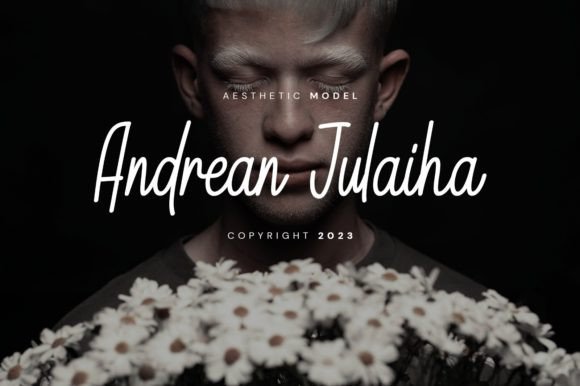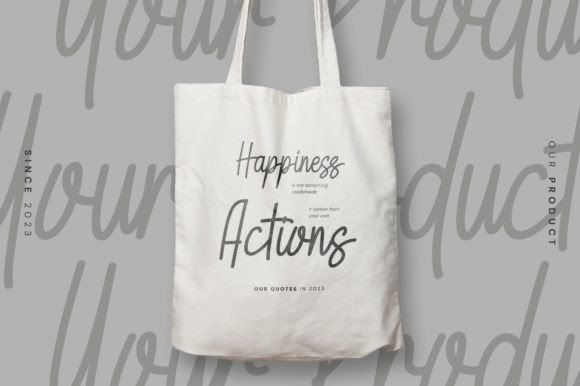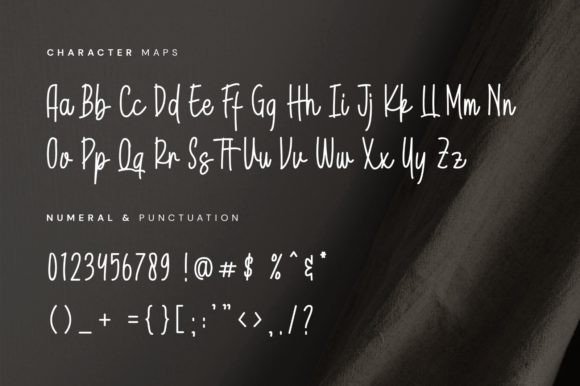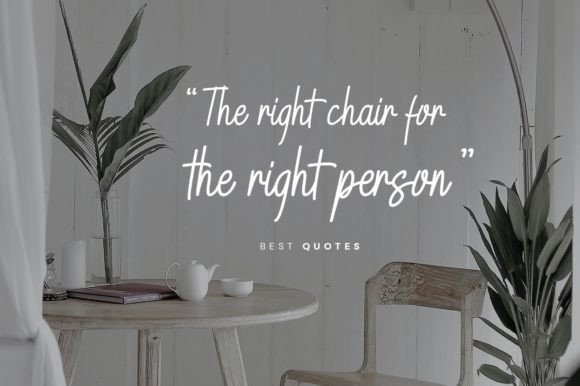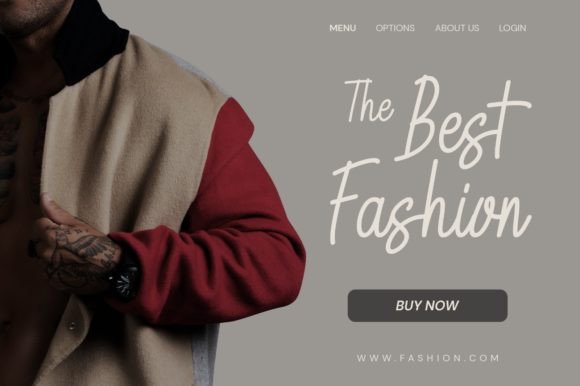
Introduction to Heart Bullet Font
Do you remember that moment when you stumbled upon the perfect design element that elevated your creative project from ordinary to extraordinary? For designers, finding the right font can be a game-changer. It’s the difference between a bland, generic look and a unique, eye-catching visual identity that speaks to your audience.
One such design resource that has been making waves in the creative community is the Heart Bullet Font. This charming handwritten script font is perfect for adding a customized touch to your designs. Whether you’re working on wedding invitations, cards, or any other project that requires a high-quality, personalized feel, the Heart Bullet Font is an excellent choice. With its transparent background and free download option, it’s an easily accessible design element that can elevate your creative project to new heights.
For designers, the Heart Bullet Font is a valuable asset that can add a touch of whimsy and personality to their designs. Its high-quality, creative charm makes it an ideal choice for any project that requires a unique and eye-catching visual identity.
Key Features of Heart Bullet Font
- Unique, hand-drawn design with a distinctive heart-shaped bullet point, adding a touch of creativity and personality to any project.
- Perfect for use in logos, icons, infographics, and other visual elements where a creative and eye-catching design is required.
Honest Review: Heart Bullet Font
I recently came across the Heart Bullet Font and I’m excited to share my thoughts on it. This font is perfect for any creative project that needs a touch of whimsy and romance. It’s a great design resource for those looking for a high-quality font that can add a personal touch to their work.
- ✨ The font has a unique and playful design that’s perfect for creative projects.
- ✨ The font has a transparent background, making it easy to use with any background image or color.
- ⚠️ The font is not suitable for formal or professional projects, as it may come across as too playful or childish.
Overall, I’m impressed with the Heart Bullet Font and would recommend it to designers looking for a fun and creative font to add to their design resource library.
Getting the Most Out of Heart Bullet Font
Use the Heart Bullet Font in combination with other design elements, such as images or shapes, to create a unique look. Experiment with different font sizes, colors, and transparency levels to achieve the desired effect. Also, use the font in a variety of creative projects, such as social media graphics, posters, or flyers.
The Heart Bullet Font is commonly used in social media graphics, posters, flyers, and presentations. It’s also used in designs for Valentine’s Day, weddings, and other romantic occasions. The font is ideal for adding a creative touch to your designs and making them stand out.